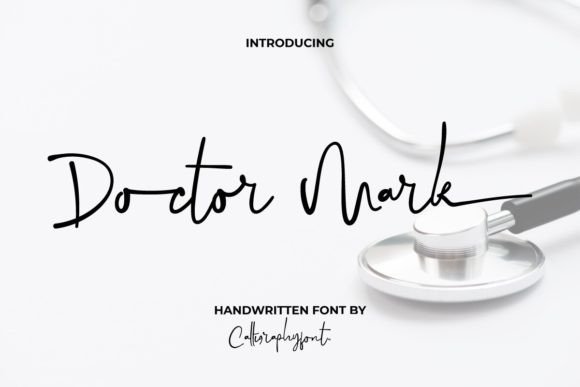
Introducing Doctor Mark Font: A Classy Handwritten Font for Creative Projects
Are you looking for a unique and elegant font to elevate your creative projects? Look no further than Doctor Mark Font, a beautiful handwritten font inspired by signature writing. Created by CalligraphyFonts, this irregular bold and thin font is perfect for adding a touch of sophistication to your brand logo, business card, invitation, label, magazine catalog, menu, custom design, quote, stationery, title, website, and more.
Key Features of Doctor Mark Font
- Classy Handwritten Style: Doctor Mark Font boasts a beautiful, handwritten style that is reminiscent of elegant signature writing.
- Irregular Bold and Thin Lines: The font features irregular bold and thin lines, giving it a unique and eye-catching appearance.
- Perfect for Creative Projects: Whether you’re working on a brand logo, business card, invitation, or any other creative project, Doctor Mark Font is the perfect choice.
- Easy to Read: Despite its elegant and cursive nature, Doctor Mark Font is easy to read, making it suitable for a wide range of applications.
10 Creative Ways to Use Doctor Mark Font
- Brand Logo: Create a lasting impression with a unique and elegant brand logo that incorporates Doctor Mark Font.
- Business Card: Stand out from the crowd with a beautifully designed business card that features Doctor Mark Font.
- Invitation: Add a touch of sophistication to your invitations, whether it’s for a wedding, birthday party, or corporate event.
- Label and Packaging: Use Doctor Mark Font to create eye-catching labels and packaging that will make your product stand out.
- Magazine Catalog: Add a touch of elegance to your magazine catalog with Doctor Mark Font.
- Menu: Create a memorable dining experience with a menu that features Doctor Mark Font.
- Custom Design: Use Doctor Mark Font to create unique and eye-catching custom designs for your clients or personal projects.
- Quote and Typography: Use Doctor Mark Font to create inspiring quotes and typography that will leave a lasting impression.
- Stationery: Elevate your stationery with a beautiful and elegant font like Doctor Mark.
- Website: Use Doctor Mark Font to create a unique and memorable website that will set you apart from the competition.
The Benefits of Using Doctor Mark Font
Using Doctor Mark Font can bring numerous benefits to your creative projects. Here are a few:
- Unique and Eye-Catching: Doctor Mark Font is a unique and eye-catching font that will make your project stand out from the crowd.
- Elegant and Sophisticated: The font’s elegant and sophisticated style makes it perfect for projects that require a touch of class.
- Versatile: Doctor Mark Font is versatile and can be used for a wide range of projects, from branding and advertising to packaging and stationery.
- Easy to Read: Despite its elegant nature, Doctor Mark Font is easy to read, making it suitable for projects that require clear communication.
Tips and Tricks for Using Doctor Mark Font
Here are a few tips and tricks to help you get the most out of Doctor Mark Font:
- Use it Sparingly: Use Doctor Mark Font sparingly to create emphasis and add visual interest to your project.
- Pair it with Other Fonts: Pair Doctor Mark Font with other fonts to create a unique and visually appealing typography.
- Experiment with Colors: Experiment with different colors to find the perfect combination that complements Doctor Mark Font.
- Pay Attention to Kerning: Pay attention to kerning to ensure that the font looks elegant and sophisticated.
In conclusion, Doctor Mark Font is a beautiful and elegant handwritten font that is perfect for creative projects. Its unique and eye-catching style, versatility, and ease of readability make it a great choice for a wide range of applications. By following the tips and tricks outlined above, you can get the most out of Doctor Mark Font and create stunning projects that will leave a lasting impression.